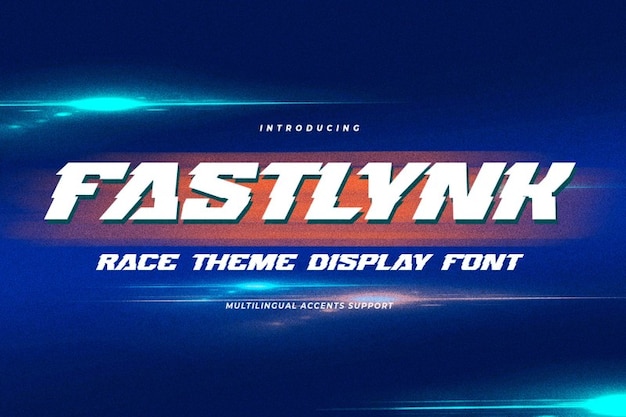
With its flashy colors and design, Fastlynk is modern font created for you to enhance your projects with a new style. Download it now and start creating new backgrounds, invitation cards, flyers and much more!
Fastlynk (400)